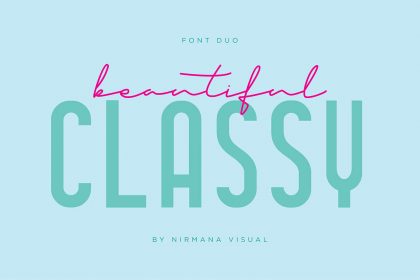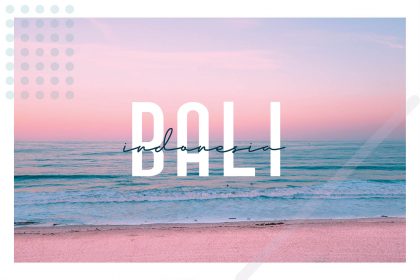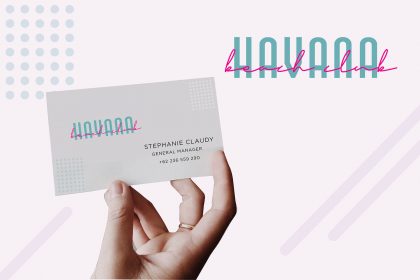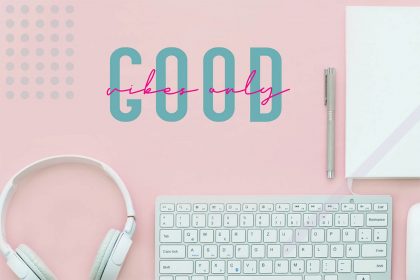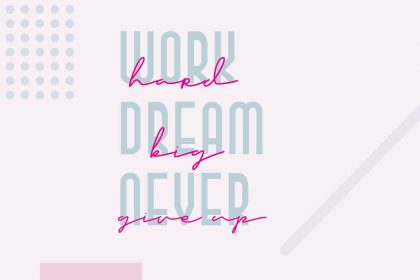
Classy Beauty Font Duo
Introducing the Classy Beauty Font Duo, a classy, contemporary pair of script and sans fonts.
beautiful typographic harmony for a diversity of design projects, including logos & branding, wedding designs, social media posts, advertisements & product designs.
1. Classy Beauty Sans
2. Classy Beauty Script